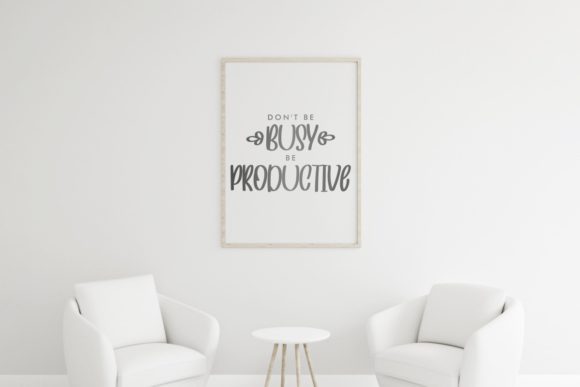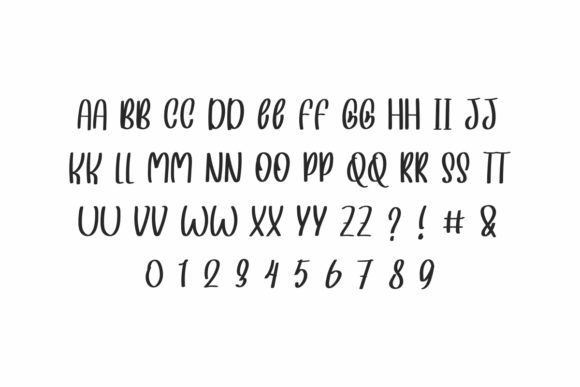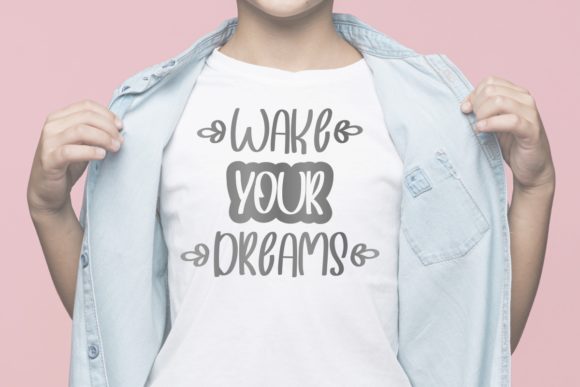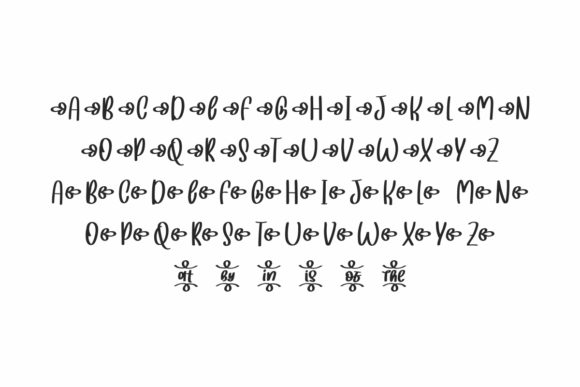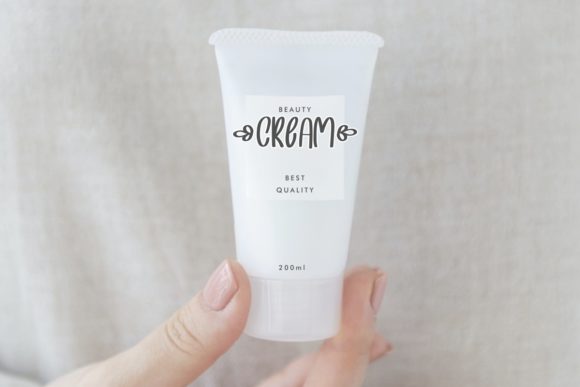
Sweetish Font
About Sweetish Font
Sweetish is a cute and friendly handwritten font. Simple and natural, this font will complement any design you wish to create!